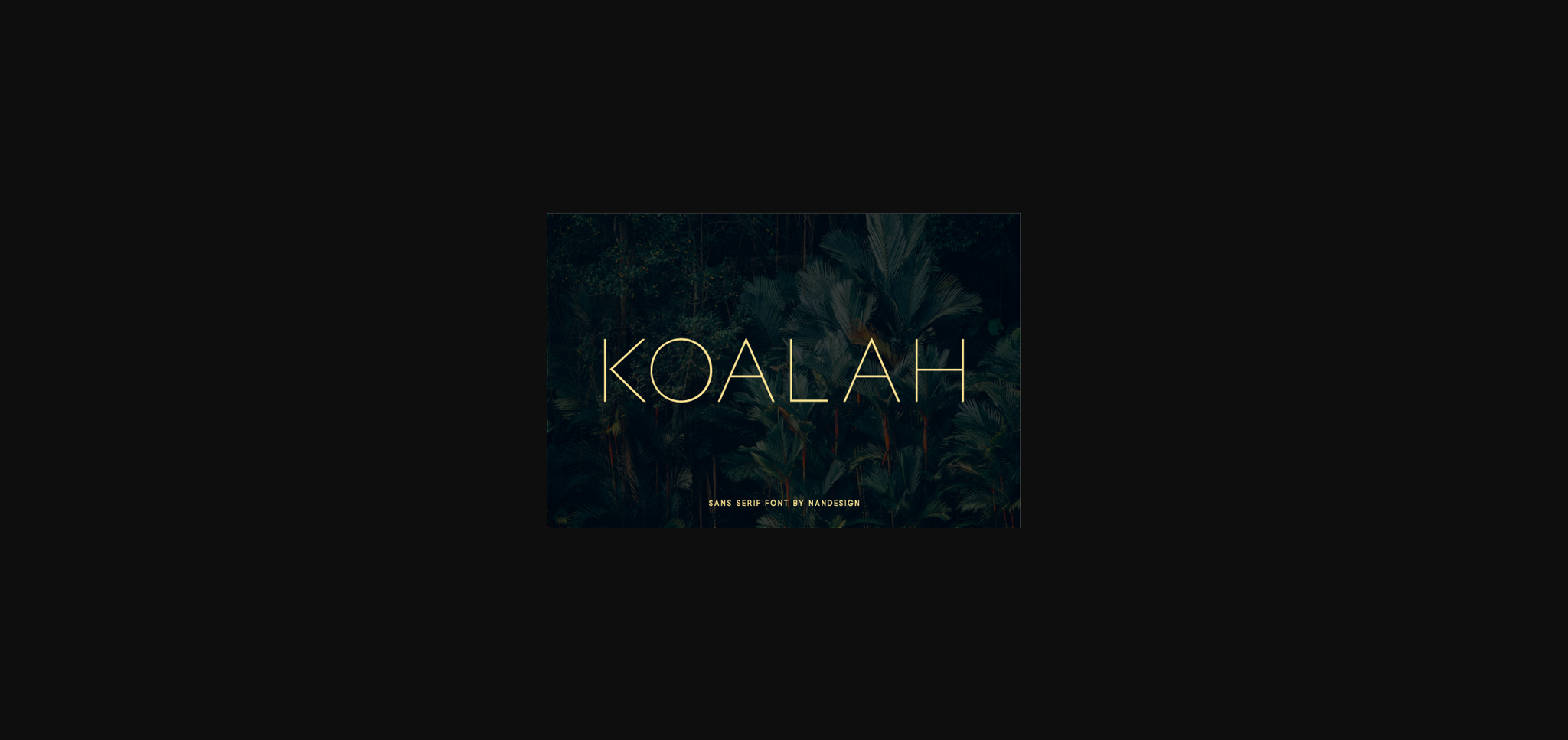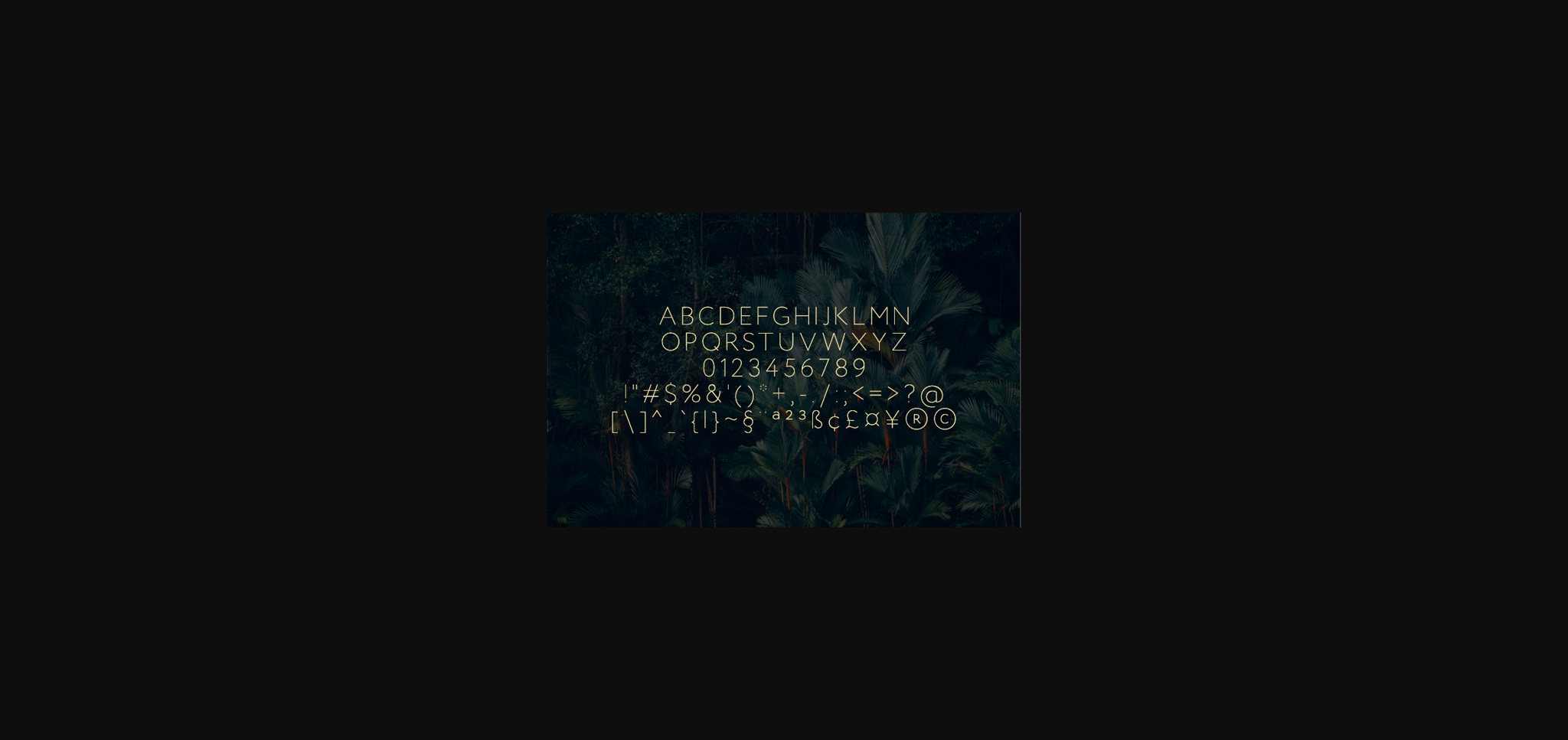
Koalah Font
About Koalah Font
Koalah is a modern and tasteful sans serif font that blends traditional influences into a contemporary aesthetic. It will elevate a wide range of design projects to the highest level, be it branding, headings, wedding designs, invitations, signatures, logos, labels, and much more!